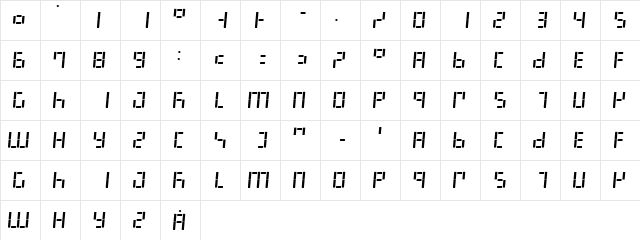
LED Digital 7 Italic
| Foundry | Style-7 |
| Designer | Sizenko Alexander |
Design Context for LED Digital 7 Typeface
LED Digital 7 has a distinctly futuristic character, with geometric precision and clean angles that feel at home in technology, gaming, and sci-fi contexts. The slanted form adds forward momentum and visual energy.
Pro Tip: Try LED Digital 7 with generous letter-spacing in UI labels and navigation — the geometric forms benefit from room to breathe.